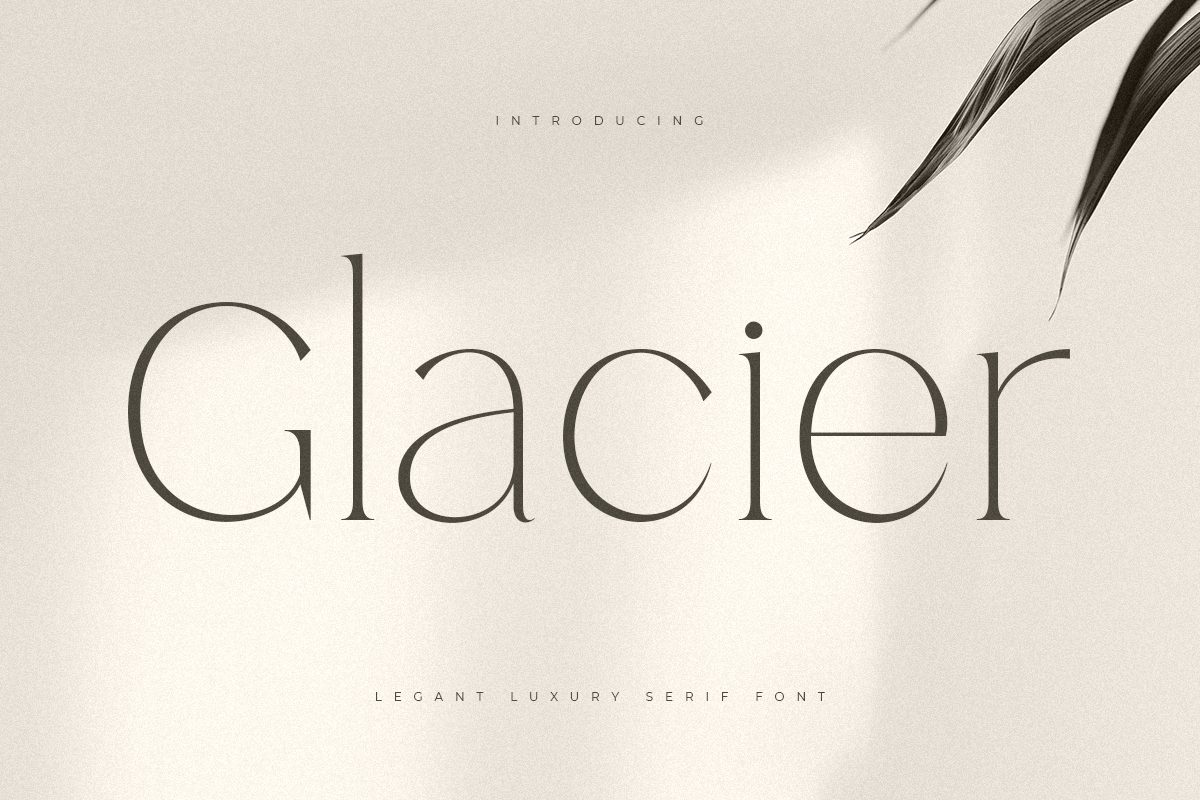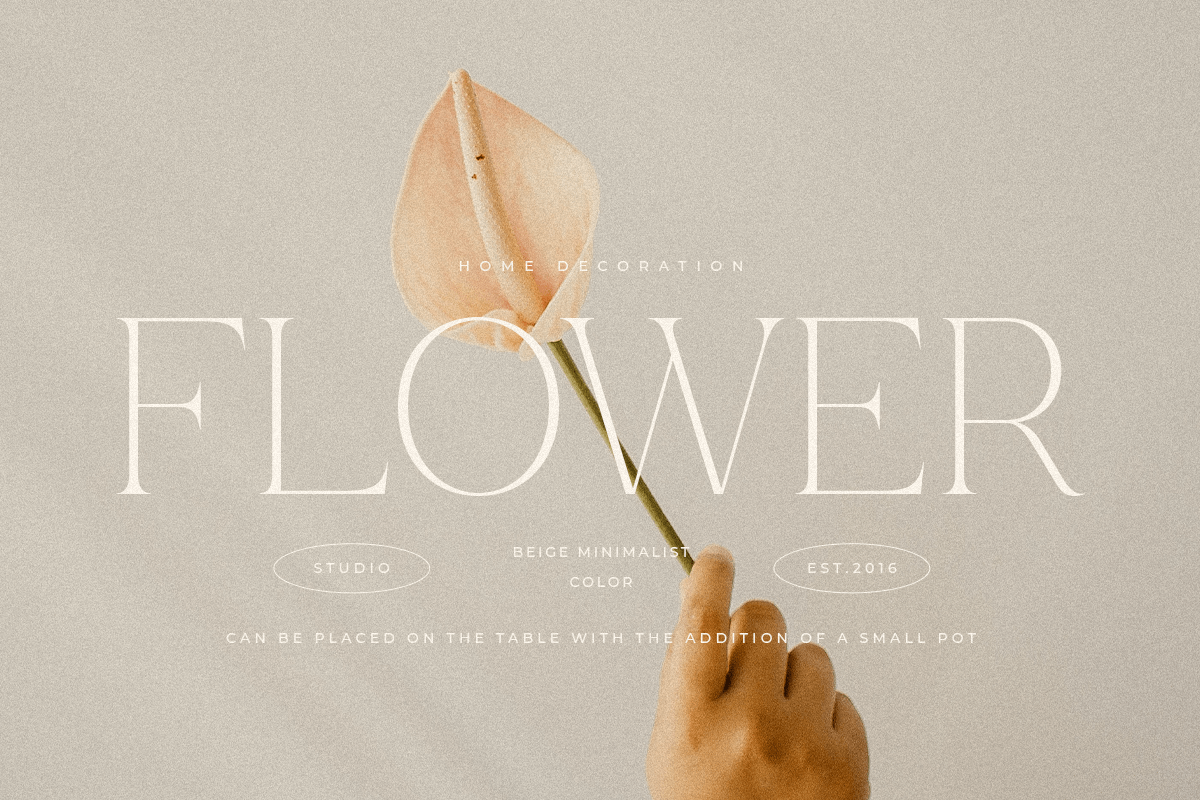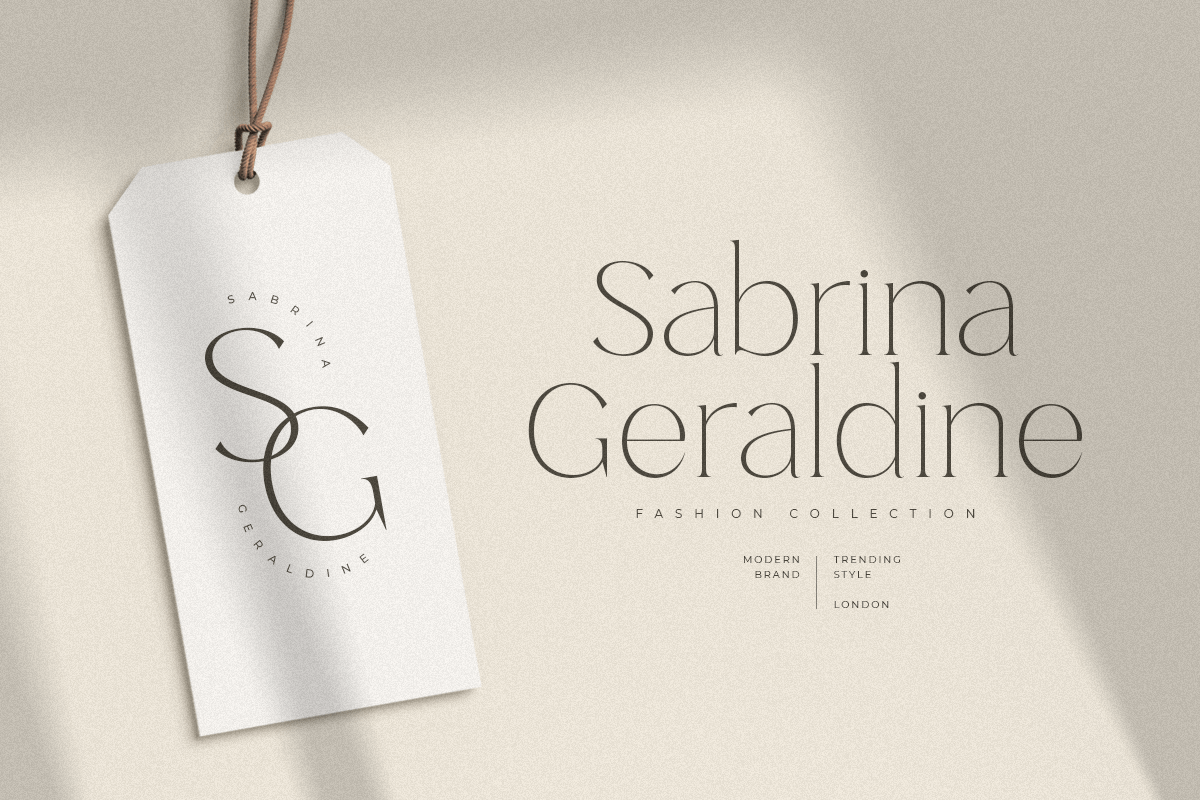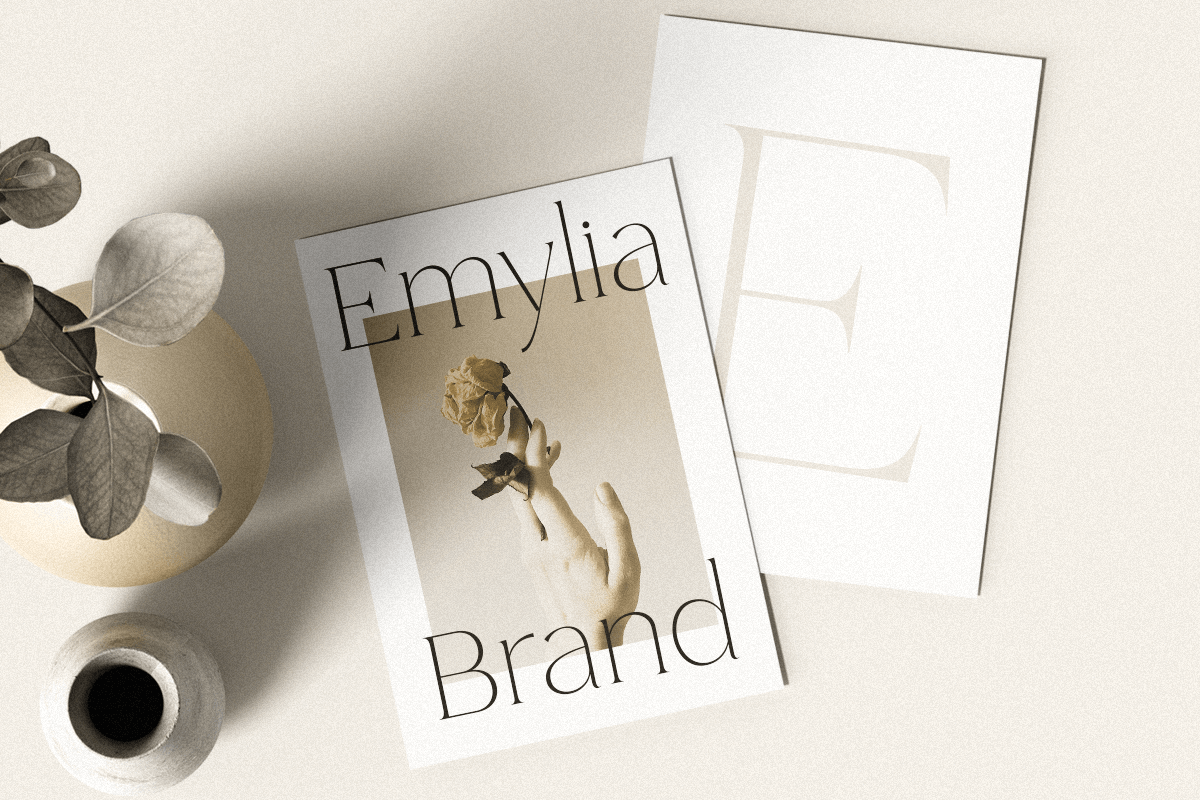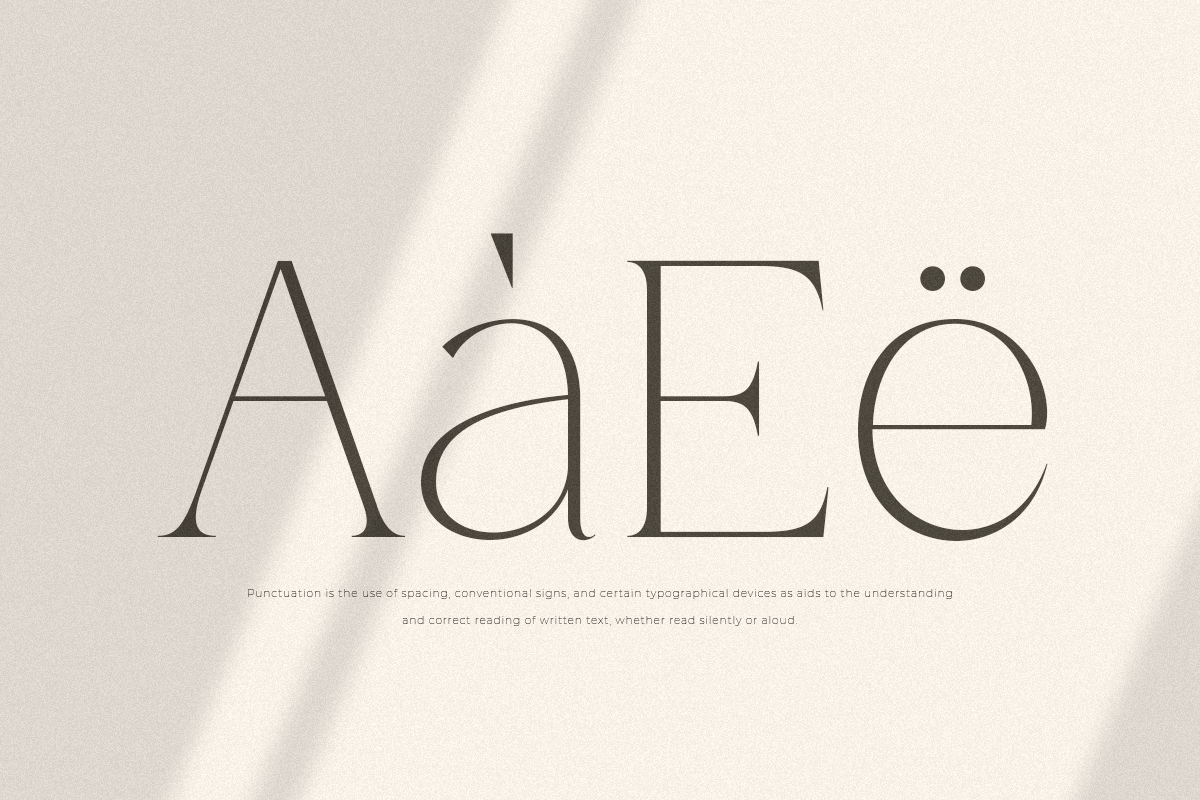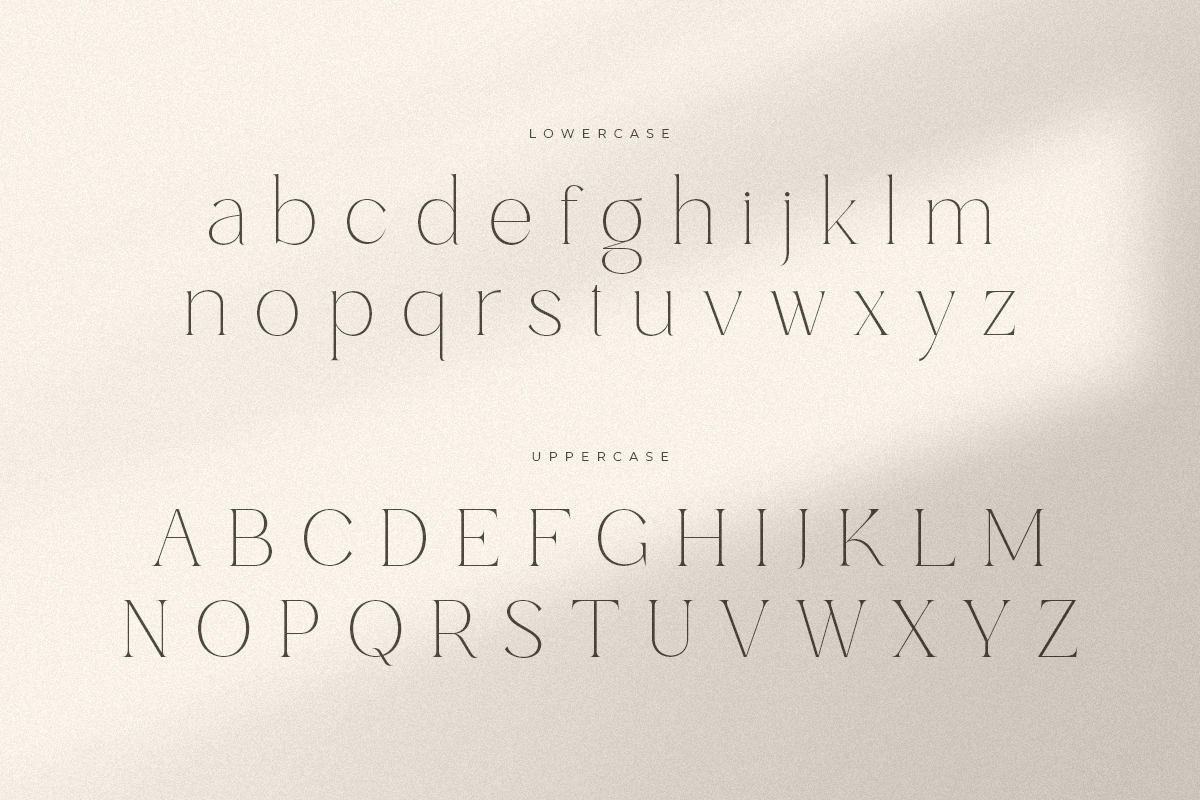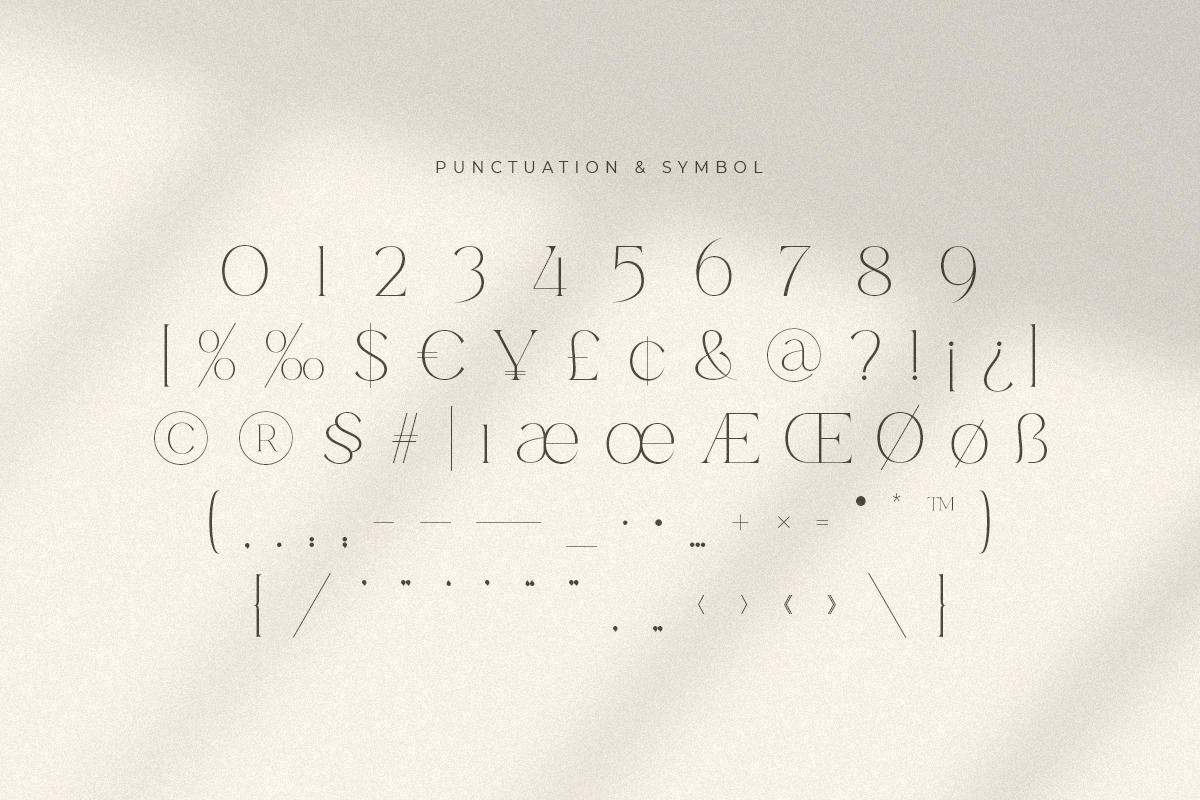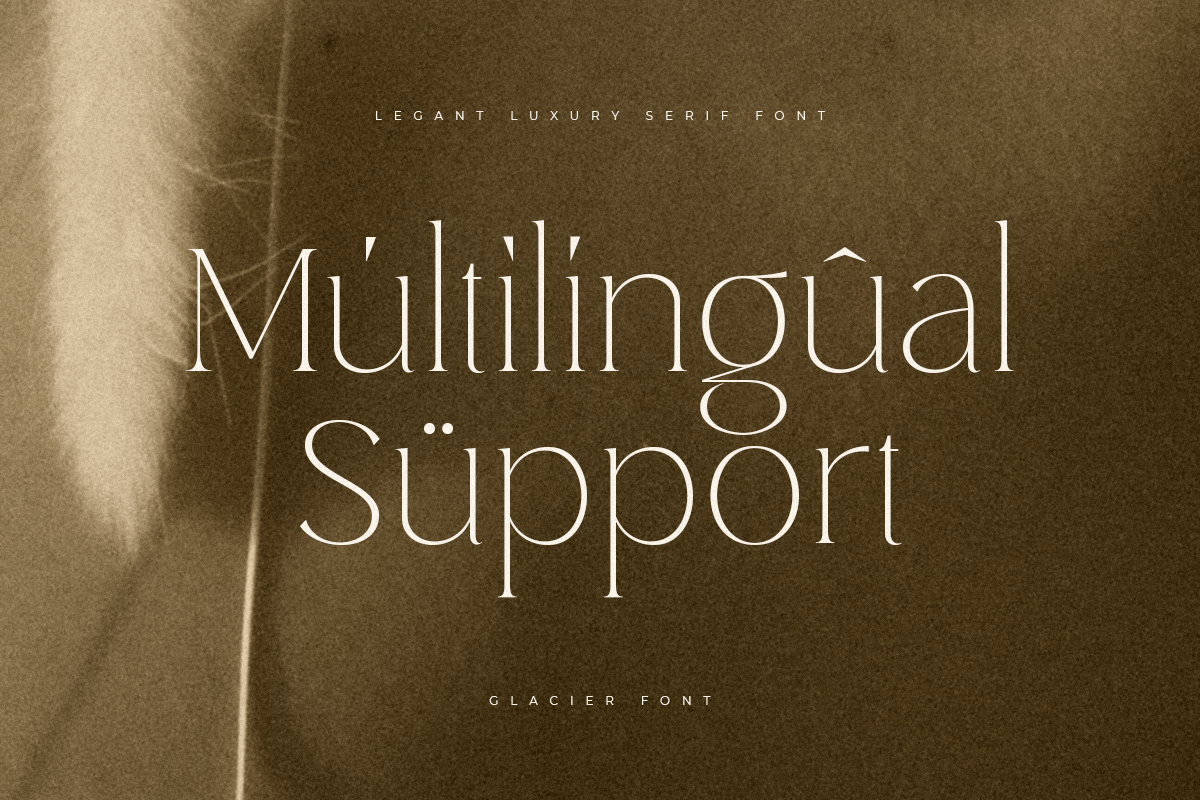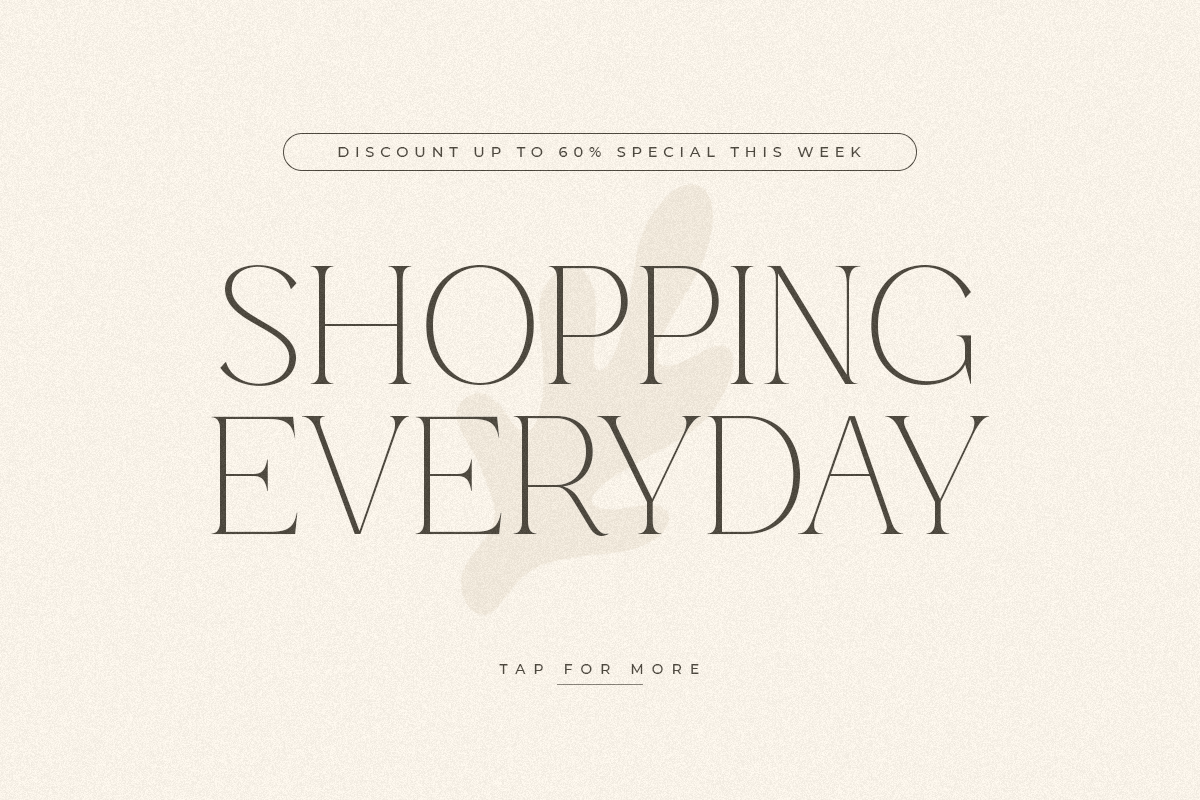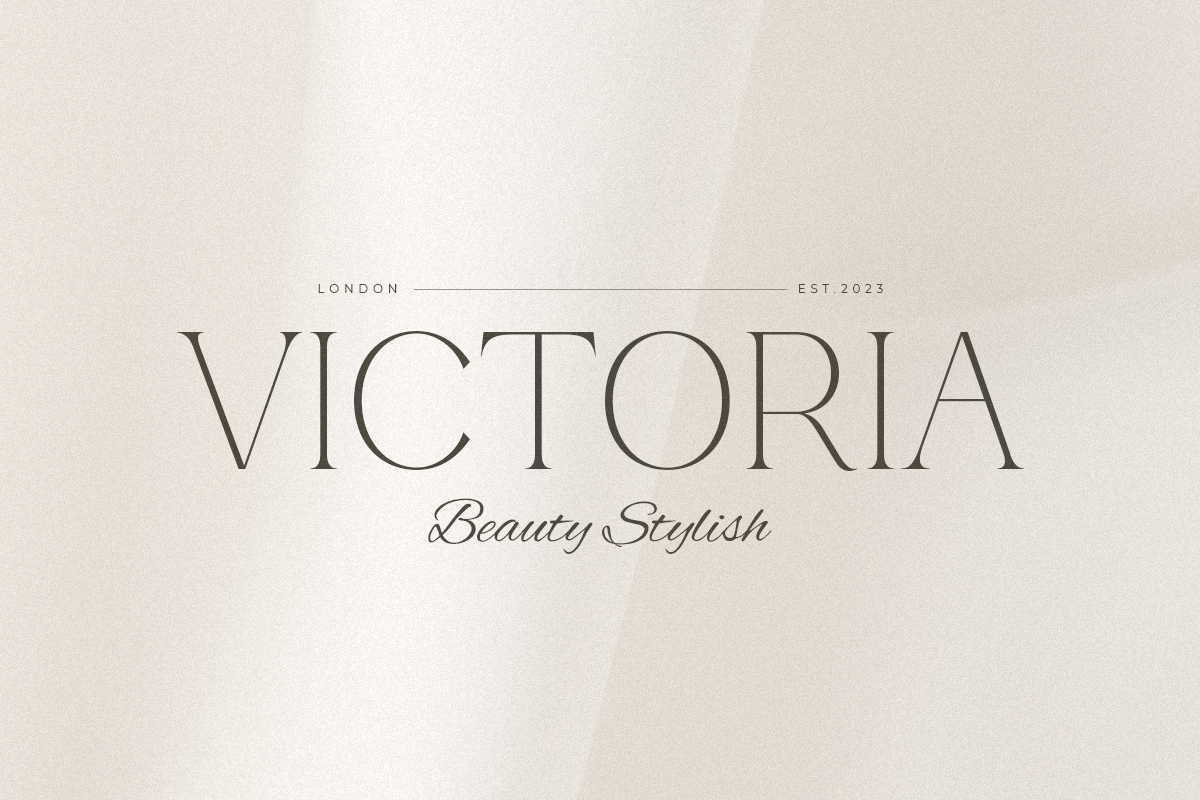
Glacier
-Elegant luxury serif font
Glacier
A Modern Elegant Luxury font that we created special for elegant branding needs, with unique shape will be ready to add value of your brand. It so nice to leverage designer or product owner that need solutions to make their design look more stylish and modern. And specially for Serenity font, We prepared any characters to help you create unlimited variations for your creative needs.